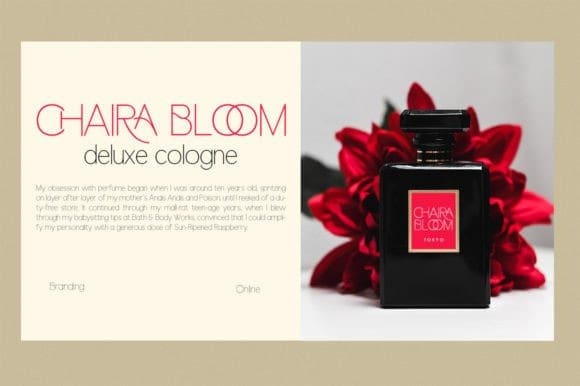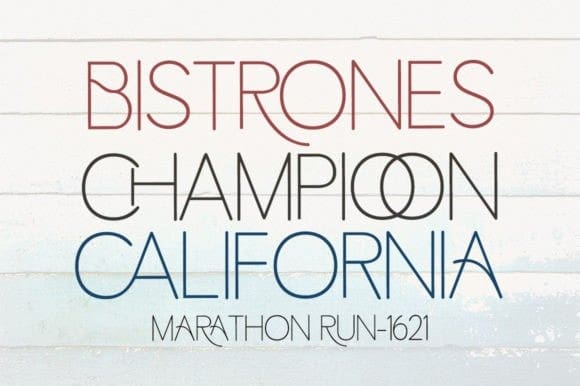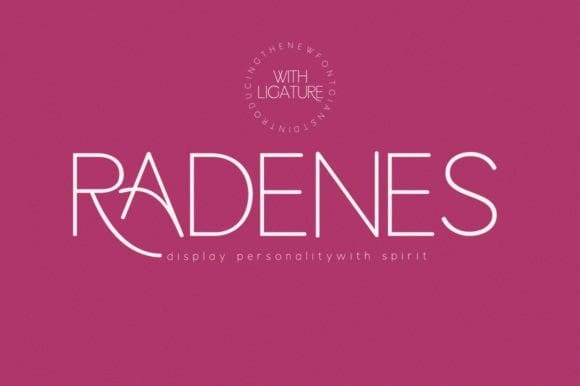
Radenes Font
Radenes Font is my new elegant sans-serif font that will give your projects a touch of luxury and style. It’s perfect for logotypes, branding, monograms and wedding invitations, blog headlines, and more.